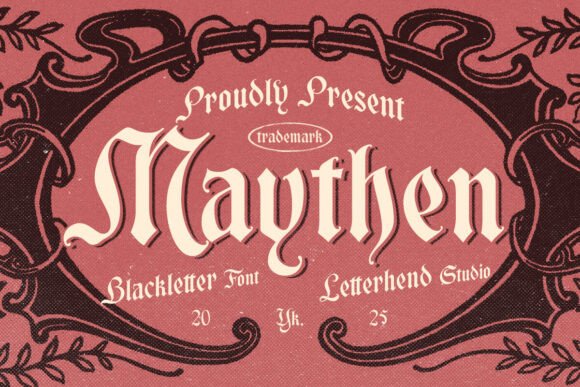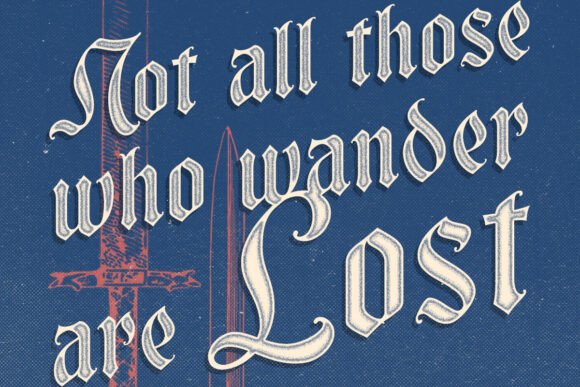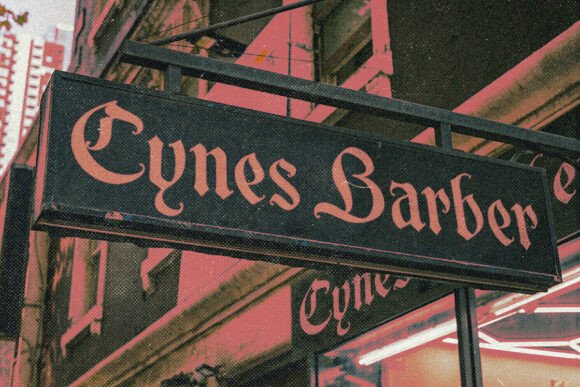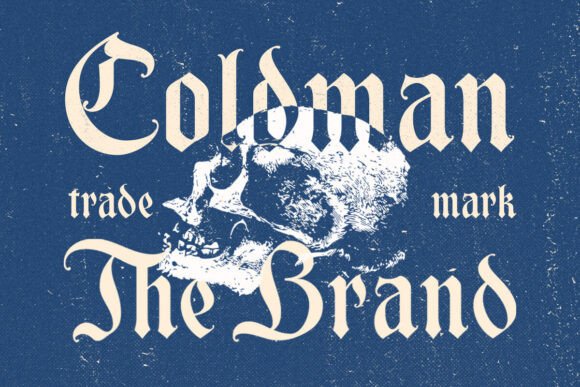
Maythen Font: Majestic Blackletter for Vintage Logo Design & Gothic Themes
About the Maythen Font
From logos to headlines, the Maythen Font is the perfect choice for making a lasting impression. Maythen is a majestic blackletter font crafted for those who dare to design with grandeur. Each stroke is steeped in old-world charm, echoing the elegance of medieval manuscripts and vintage posters. With its bold curves and commanding presence, Maythen elevates everything from book covers to branding into something timeless and regal. Let your words speak with nobility, mystery, and dramatic flair — perfect for gothic themes, antique packaging, and storytelling design.
Maythen excels in headlines, short impactful statements, and branding applications where a strong, authoritative voice is desired. Its ornate nature makes it unsuitable for body text or UI elements; legibility suffers at smaller sizes and within lengthy passages. Consider using it sparingly to create visual impact.
Its bold and dramatic personality lends itself well to projects with a gothic, vintage, or luxury feel. Brands associated with history, heritage, or high-end goods would find it particularly fitting. For a balanced design, pair Maythen with a clean sans-serif like Montserrat for readability or a classic serif like Garamond for a more traditional approach.
A complementary script font, such as Allura, could add a touch of refined elegance to enhance the overall sophistication. Avoid pairing it with other highly decorative fonts, as this will create visual clutter and reduce impact.
Maythen Font Usage Examples
Maythen Font Example